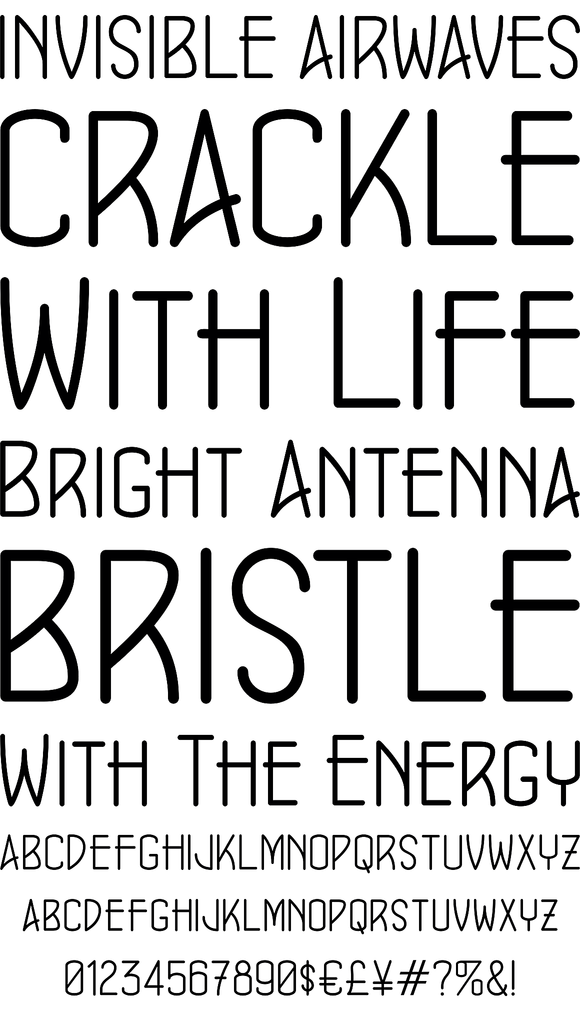
Concurso Modern
Foundry: Breaking The Norm
Concurso Modern was inspried by travel posters of the 1920s - Use it for travel posters, passports, luggage stickers or an elegant vintage look. Different than it's Italian cousin, Modern features a more progressive 1930s inspired look.